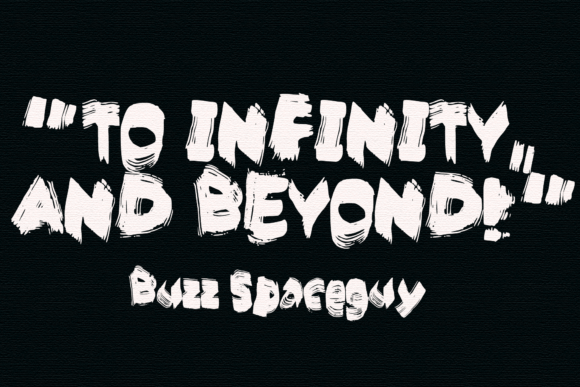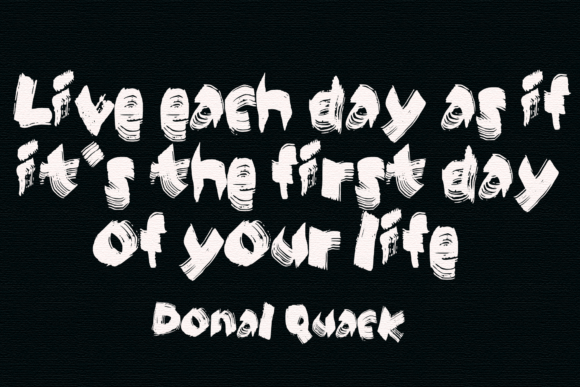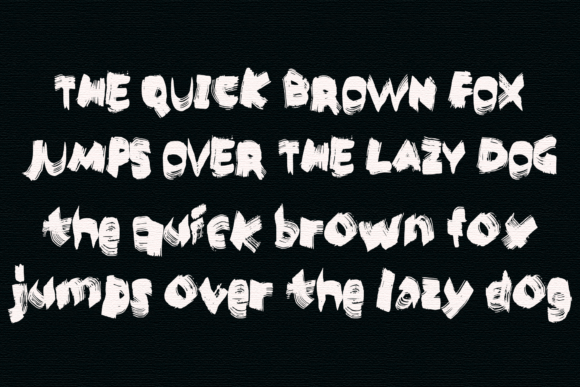
The Brush of Creativity: Introducing Artsy Brush Font
Have you ever been scribbling in a notebook, letting your pen dance across the page as ideas flow freely? That’s the magic of creative expression – a moment where nothing else matters, and the only goal is to bring your vision to life.
For designers, finding the perfect font can be just as exhilarating. That’s why we’re thrilled to introduce Artsy Brush Font, an artsy and expressive brush-painted-style display font that’s about to elevate your design projects to new heights. With its unique, hand-painted feel, Artsy Brush Font is perfect for a wide range of creative endeavors, from stickers and t-shirt designs to logo creations and magazine covers.
Artsy Brush Font Key Features
- Font Family: Artsy Brush Font
- Unique Characteristics: Hand-drawn, brush-stroke style, perfect for creative and artistic designs, includes ligatures and swashes for a more natural look
- Style Options: Includes various font styles, such as regular, bold, italic, and bold italic
Artsy Brush Font Review
I’ve had the chance to work with the Artsy Brush Font, and overall, it’s a unique and intriguing addition to any design project. ✨ The font’s hand-drawn feel and subtle imperfections add a touch of character to text, making it perfect for creative and artistic projects. ✨ The font is also highly customizable, allowing designers to adjust the brush size, stroke direction, and other settings to suit their specific needs. ✨
However, there are a few limitations to consider. ⚠️ The font can be quite busy, making it difficult to read at smaller font sizes. ⚠️ Additionally, the font’s imperfections can sometimes make it difficult to achieve consistent text layout. ⚠️
Here are a few pros and cons to keep in mind:
- ✨ Unique, hand-drawn feel
- ✨ Highly customizable
- ✨ Perfect for creative and artistic projects
- ⚠️ Can be difficult to read at smaller font sizes
- ⚠️ Imperfections can make text layout inconsistent
Overall, the Artsy Brush Font is a great addition to any design project that requires a unique and creative touch. While it may have its limitations, the font’s versatility and customization options make it a worthwhile investment for designers looking to add some personality to their work.
The Artsy Brush Font is ideal for creating unique and creative text elements, such as:
- Artistic and creative projects.
To get the most out of the Artsy Brush Font, experiment with different font sizes, colors, and styles to create unique and eye-catching text elements.
Alternatives to Artsy Brush Font
Great Vibes is a beautiful, handwritten font that resembles brush script. It’s perfect for creating a relaxed, casual atmosphere in designs. Great Vibes is more elegant and refined compared to Artsy Brush Font, making it suitable for high-end branding and invitations.
Cinzel
Cinzel is a elegant, brush-style font that’s inspired by ancient Roman inscriptions. It’s ideal for creating a sophisticated, luxurious feel in designs. Compared to Artsy Brush Font, Cinzel is more formal and less casual, making it suitable for corporate branding and luxury packaging.
Carolyna Pro is a modern, brush-style font that’s perfect for creating a trendy, urban atmosphere in designs. It’s more modern and edgy compared to Artsy Brush Font, making it suitable for fashion branding, streetwear, and nightlife promotions.
Julius Sans One
Julius Sans One is a sans-serif font with a subtle, brush-like feel. It’s perfect for creating a clean, minimalist atmosphere in designs. Compared to Artsy Brush Font, Julius Sans One is more modern and less ornate, making it suitable for tech branding, minimalistic websites, and editorial designs.
Artsy Brush Font Creative Projects
Project 1: Hand-Drawn Wedding Invitations
Design unique and personalized wedding invitations using Artsy Brush Font. This font adds a touch of elegance and whimsy to your wedding stationery.